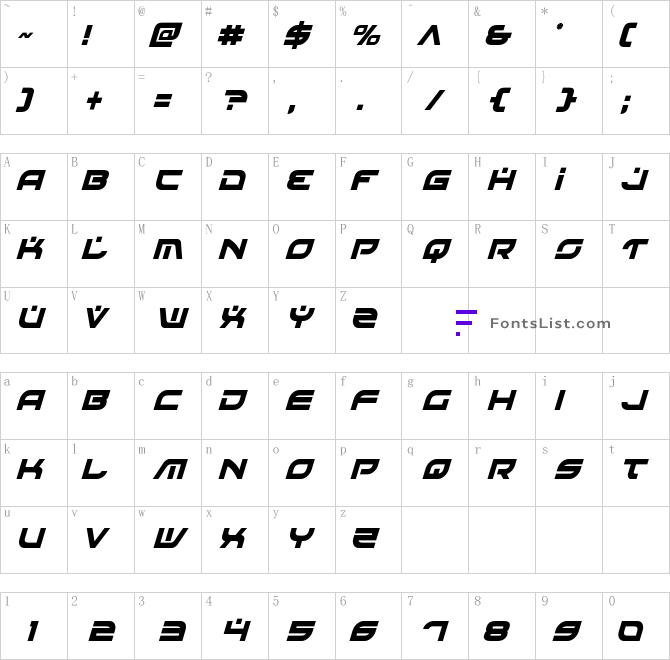
- Font Name:Battlefield Condensed Italic
Battlefield-Condensed-Italic-copy-2-.ttf is a very beautiful artistic font, Battlefield-Condensed-Italic-copy-2-.ttf is widely used in the design and printing of various books and pictures,Battlefield-Condensed-Italic-copy-2-.ttf has a strong visual impact,Battlefield-Condensed-Italic-copy-2-.ttf is a commonly used font in newspapers, magazines and books, and is used in posters, e-commerce Poster design, store design, logo design, font design and other fields.Battlefield-Condensed-Italic-copy-2-.